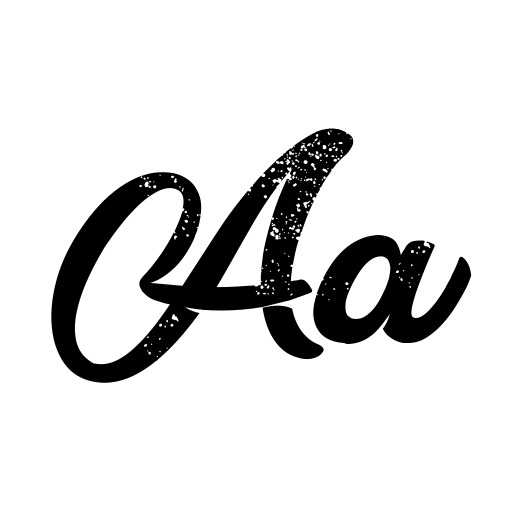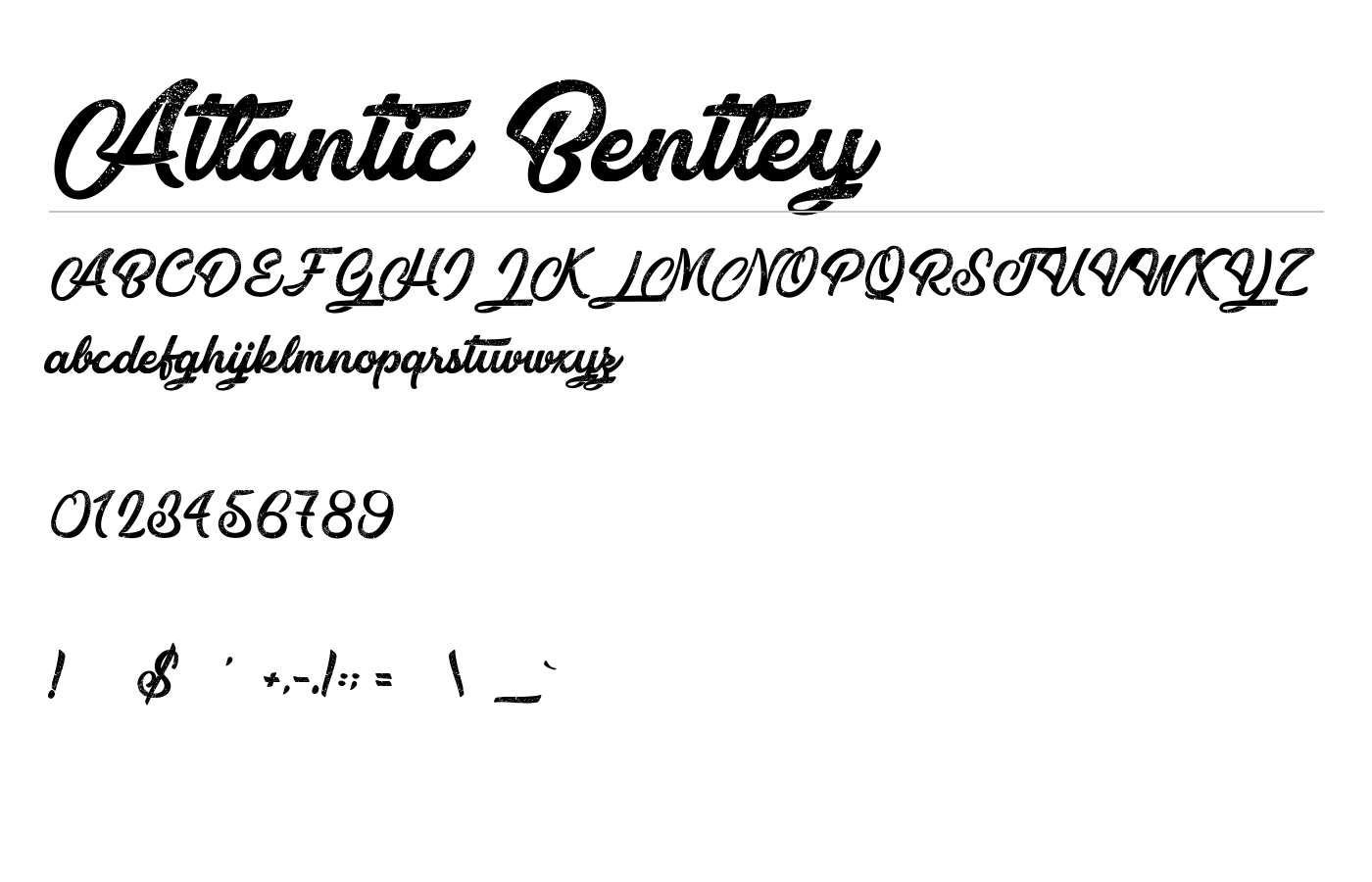
Atlantic Bentley is a bold, vintage-inspired script font featuring a textured, hand-lettered look with smooth, flowing strokes and stylish swashes. Its lively, casual elegance makes it ideal for branding, packaging, and headline use where a warm, authentic, and slightly retro feel is desired. This font works beautifully in designs aiming to convey personality and charm with a handcrafted touch.
Atlantic Bentley Font
About Atlantic Bentley Font
| Designer | Octotype |